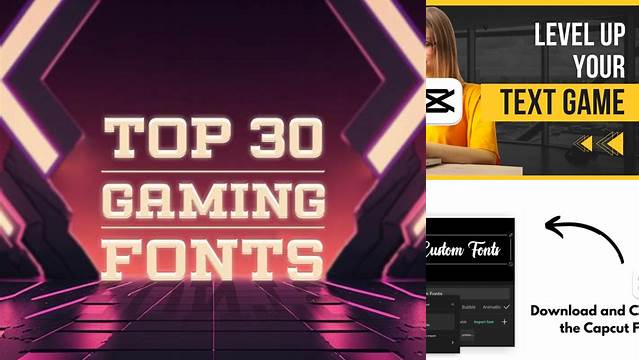
Cool Fonts On CapCut: Your Ultimate Guide!
Hey guys! Ever wondered how to make your CapCut videos pop and grab eyeballs? One of the coolest ways to do that is by using cool fonts! Let's dive into the world of CapCut fonts, explore where to find them, and learn how to add some serious style to your video projects. This guide will cover everything from the basics to some pro tips for font fanatics. Buckle up, because we're about to transform your videos from meh to mind-blowing!
CapCut Fonts: Your Secret Weapon for Video Editing
So, what's the big deal about fonts in CapCut? Think of fonts as the clothing and accessories for your video. They add personality, communicate your message, and help you build a brand. Without a good font, your videos might look bland or unprofessional. That's why understanding CapCut fonts is so crucial. CapCut offers a good selection of built-in fonts, but the real magic happens when you expand your horizons and explore the vast world of custom fonts. Whether you're making a quick TikTok, a YouTube tutorial, or a longer-form video, the right font can make all the difference. A bold, eye-catching font can grab attention, while a clean, minimalist font can convey professionalism. Experimenting with different fonts is a fun and essential part of the video editing process. It allows you to find the perfect match for your content and target audience. Using the right font can significantly enhance your video's visual appeal, ensuring that your message is communicated effectively and leaving a lasting impression on your viewers. It’s not just about choosing a font; it's about understanding how fonts affect the overall tone and aesthetic of your video. Choosing the wrong font can confuse your audience or look out of place, while the right font can enhance the viewer's experience and help them connect with your content on a deeper level. Think about your audience and the message you want to convey. Are you aiming for fun and energetic, or professional and informative? The answer will guide your font choices.
CapCut’s built-in fonts are a great starting point, offering a solid foundation for your text overlays. You can find these fonts directly within the app, ready to use right away. While these are sufficient for many basic needs, the true customization comes from exploring custom fonts. These offer a unique opportunity to express your creativity and align with your personal style or brand. Don't be afraid to try different fonts and see what works best for you. The more you experiment, the better you'll become at choosing fonts that enhance your videos.
Finding Cool Fonts: Where to Find CapCut Font Resources
Now, let's talk about finding cool fonts. While CapCut offers a good selection of built-in fonts, the real fun begins when you venture into the world of external font resources. There are tons of places where you can find amazing fonts, both free and paid. Here are some of the best resources.
Google Fonts: A fantastic resource for free fonts! Google Fonts offers a vast library of high-quality, open-source fonts that are easy to download and use. They're designed to be web-friendly, so they work great with CapCut. You can browse by category, style, and language. Plus, they’re constantly adding new fonts, so you’ll never run out of options. You can easily search for fonts that match your video's theme or aesthetic. Many creators start their font search on Google Fonts because of its accessibility and diverse collection. DaFont: DaFont is another great website with a huge selection of fonts, and the majority of them are free for personal use. It has a user-friendly interface that allows you to filter fonts by style, theme, and popularity. Make sure to check the license for commercial use if you plan on using it for business purposes. The site is known for its curated collection, so you're bound to find something that suits your style. With many choices at your fingertips, you can find the perfect font to match your project’s unique style.
Font Squirrel: Font Squirrel is another excellent website offering a curated selection of free, high-quality fonts. They carefully select fonts to ensure they meet high standards. It's a great place to find fonts that are both visually appealing and legally safe to use. The website provides easy-to-download font files that are ready to use in CapCut. Because it offers fonts specifically designed for commercial usage, it makes it an ideal destination for content creators focused on business. Creative Market: If you're looking for premium fonts, Creative Market is the place to go. They offer a wide range of fonts from independent designers at affordable prices. Purchasing a font from Creative Market ensures you support talented designers while adding unique fonts to your toolkit. This is a great way to get professional fonts that can make your videos stand out. It offers a subscription service and also allows you to purchase individual fonts to tailor the aesthetic and tone of your videos perfectly. Remember to always check the licensing terms before using any font. Some fonts are free for personal use but require a license for commercial projects. Always respect the creator's terms to avoid any legal issues.
How to Import Fonts into CapCut: Unleash Your Creativity
Alright, you've found some amazing fonts, now let’s get them into CapCut. Importing fonts into CapCut is a breeze, and here’s how you do it, whether you're on your phone or using the desktop version.
For Mobile (iOS and Android)
First, download the font files onto your mobile device. Usually, these files come in a .ttf or .otf format. You can download them directly from the websites we've discussed. You will then need a file manager app. File managers allow you to move and organize files on your device. Then open your file manager and navigate to the folder where you downloaded the font files. Find the font file you want to import. Now, open CapCut and start a new project or open an existing one. Tap on the "Text" tool and then on "Add Text". Type in your text, and then tap on the font option. Scroll through the font list. You should see an option to "Upload Font" or "Add Font". Select this option and navigate to the folder where you saved the font files. Choose the font file you want to import and tap to add it. The font should now be available in your CapCut font list. Apply it to your text and customize as you want.
For Desktop
The process is similar on the desktop version of CapCut. Start by downloading the font files (TTF or OTF). Install the fonts on your computer. You can usually do this by double-clicking the font file and clicking "Install". Open CapCut. Start a new project or open an existing one. Tap on the "Text" tool, type your text, and go to the font option. Your newly installed fonts should now appear in the font list. If you don't see them, restart CapCut to refresh the font list. Choose your desired font and customize your text. And there you go! You have imported your custom font successfully. Now, you can use the custom fonts to make your content look amazing! This is how you take your videos to the next level.
Conclusion: Unleash Your Creativity with CapCut Fonts
So there you have it, guys! You now have the knowledge and tools you need to master CapCut fonts. Experiment with different fonts, try out the tips and tricks we've covered, and most importantly, have fun! By using the right fonts, you can transform your videos, create a unique brand identity, and engage your audience in new and exciting ways. Embrace the power of typography to elevate your video content. Happy editing!